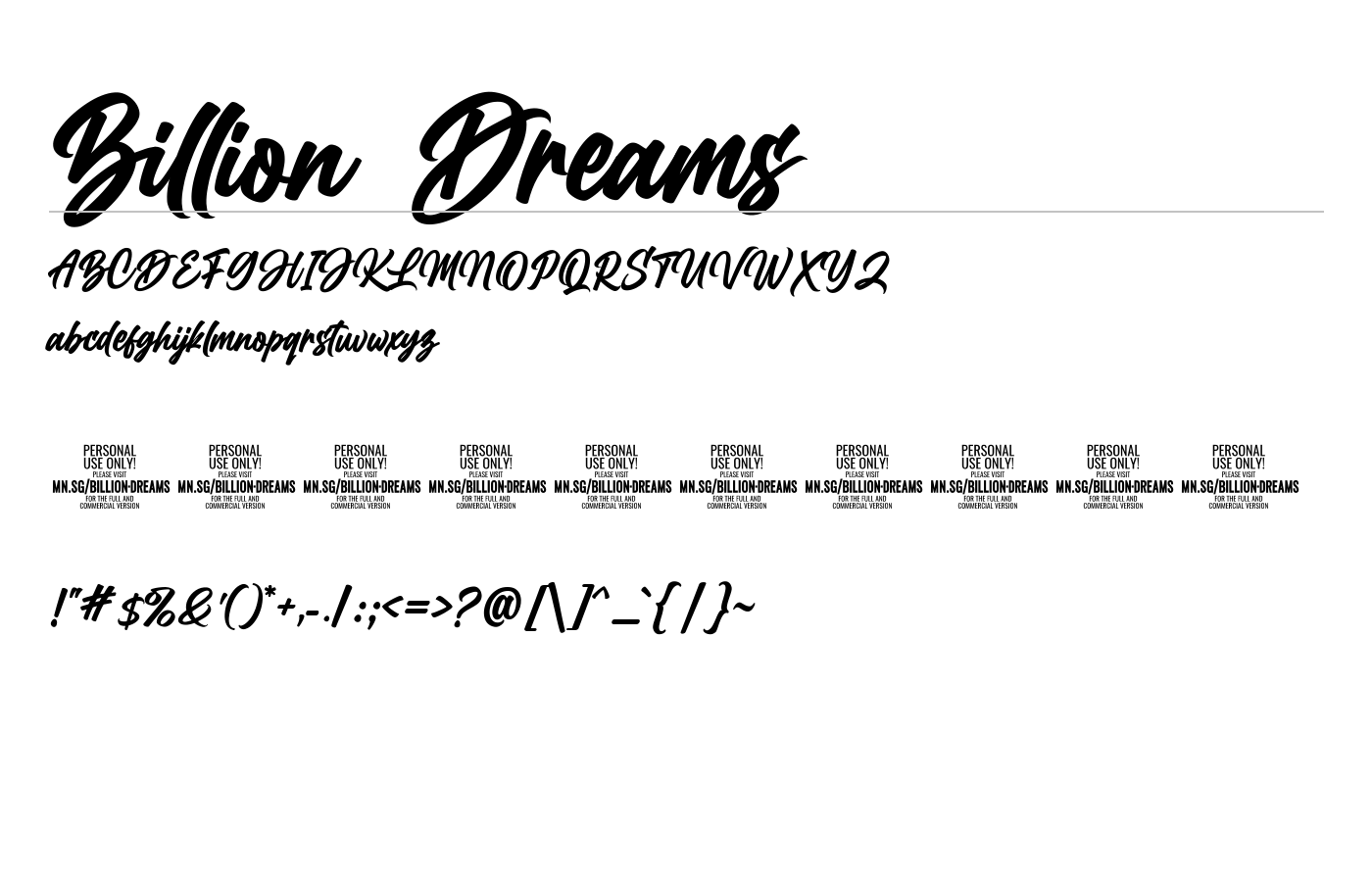
Billion Dreams is a bold, modern script font that features smooth, flowing strokes and a lively, handwritten feel. Its high contrast and fluid letterforms make it perfect for adding a personal, elegant touch to logos, invitations, and creative branding projects. This font works especially well in designs that seek a stylish, vibrant, and approachable vibe.
Billion Dreams Font
About Billion Dreams Font
| Font family | Billion Dreams Font |
| Designer | Rangga Singgih Subekti |